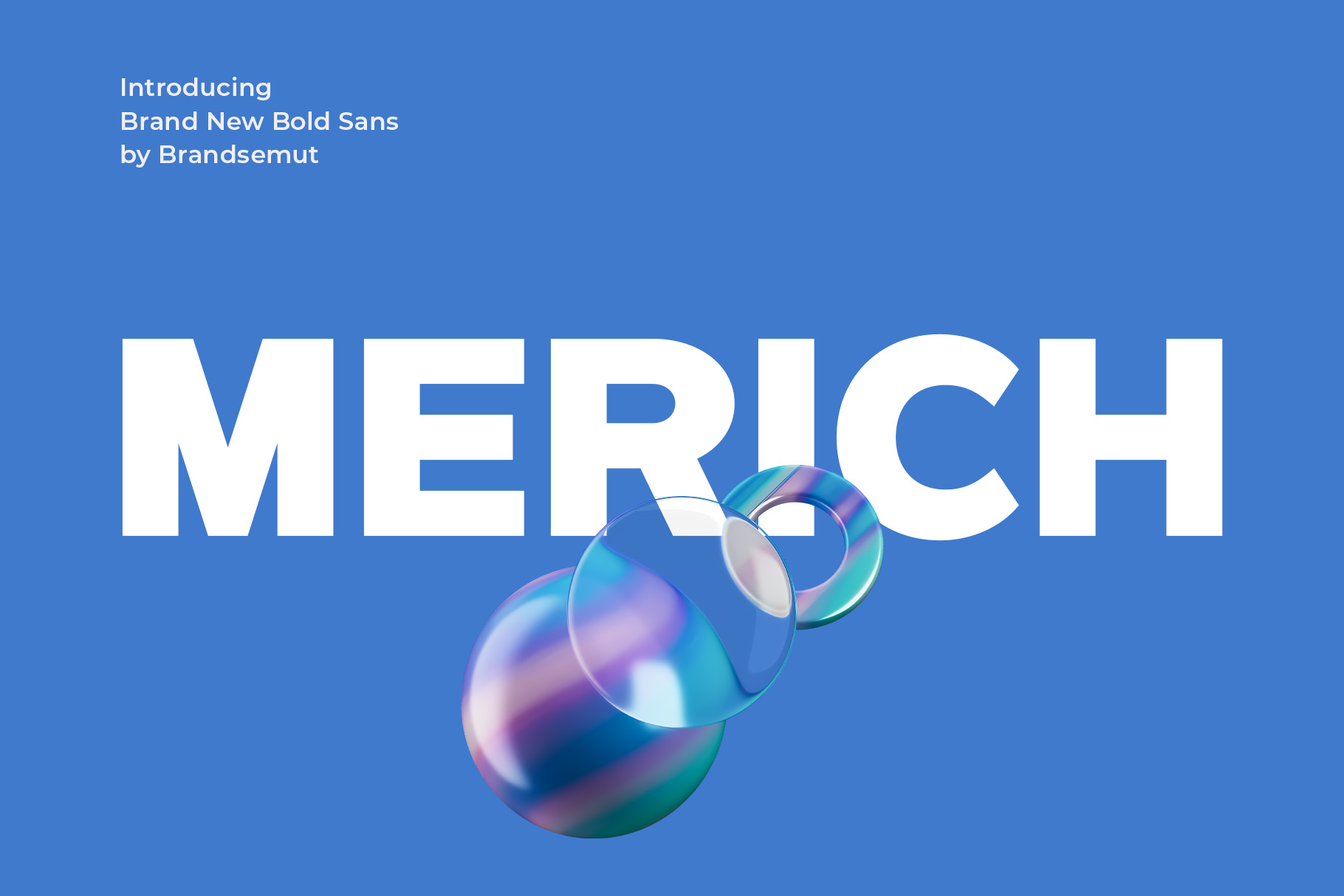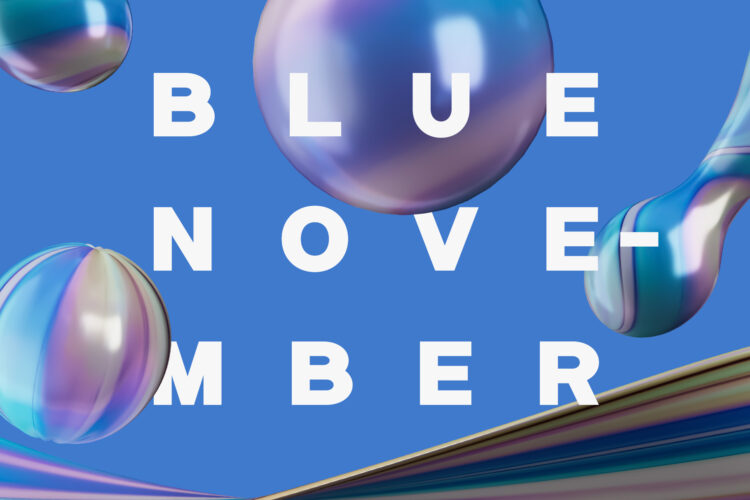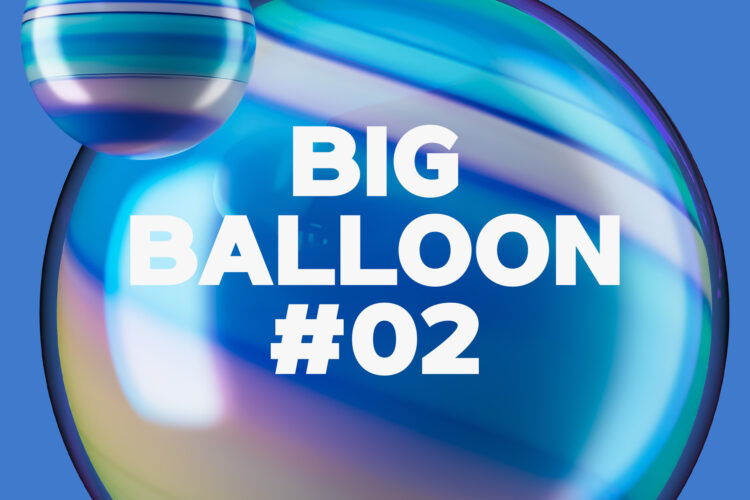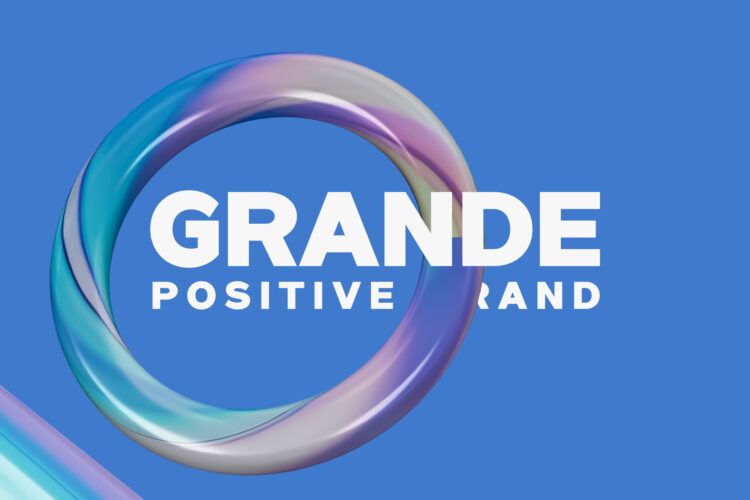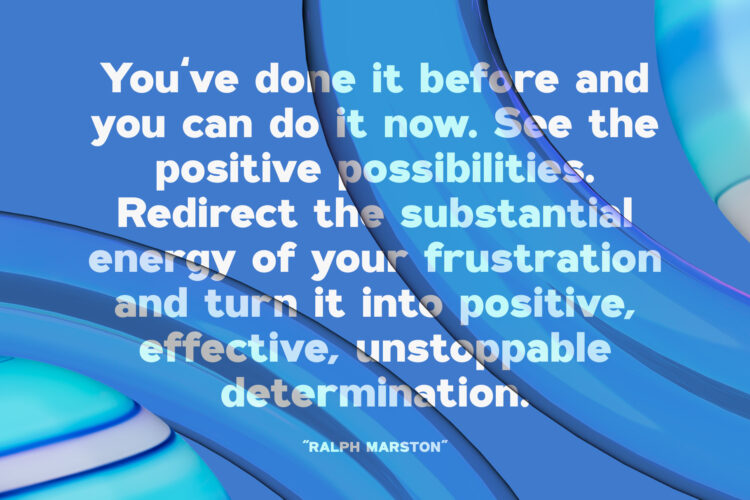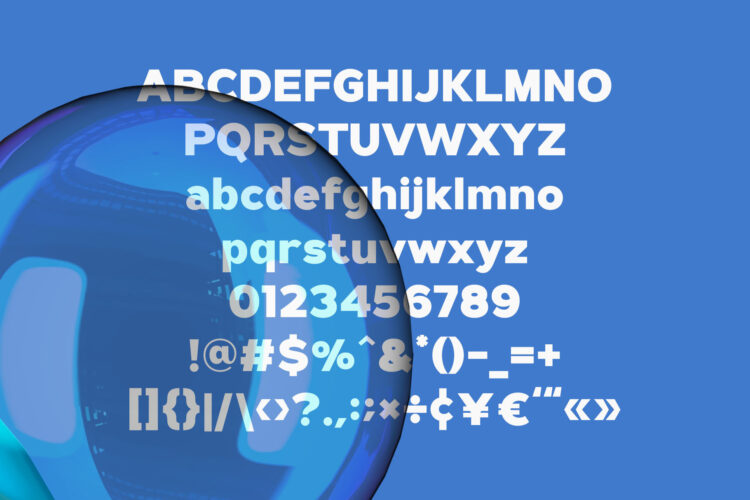
Introducing Merich Modern Bold Sans Serif.
Merich is a modern and simple font, best used as a display for headings, logos, branding, magazines, product packaging and invitations. Merich come with clean lines and smooth curves give any project an extra touch of class.
Merich – Modern Bold Sans Serif